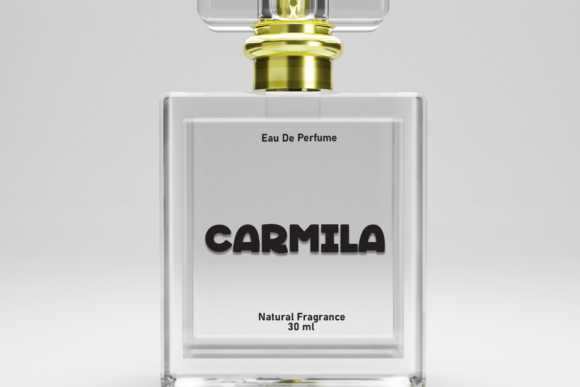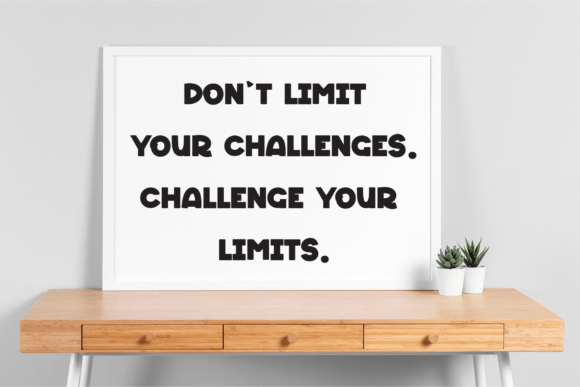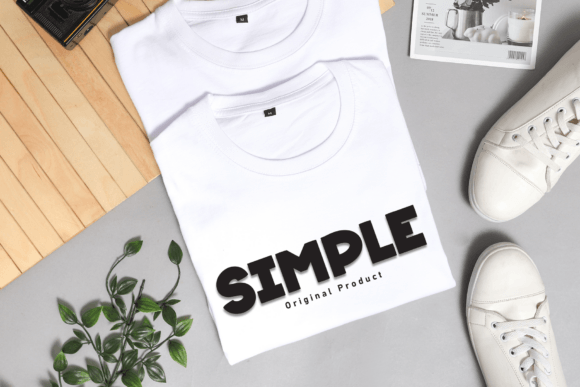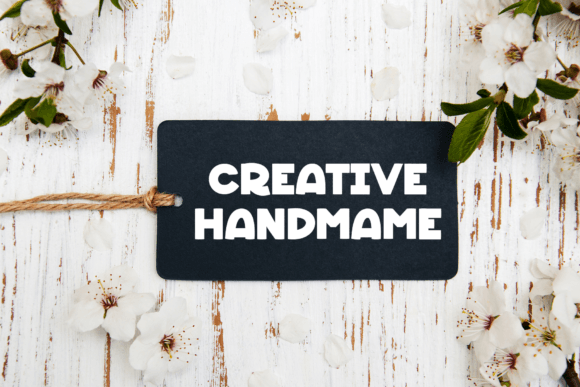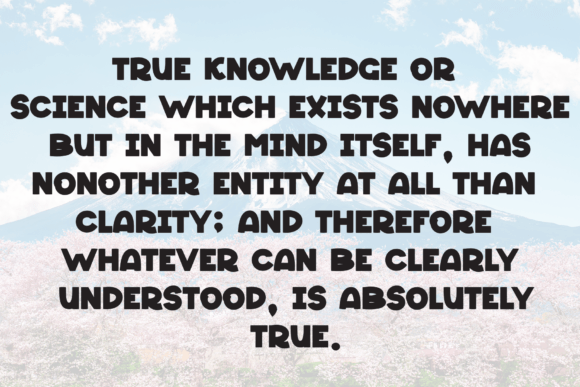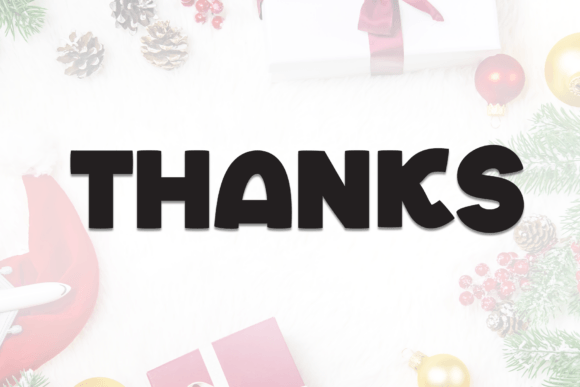
Introducing Christmas December Font: A Charming Handwritten Display Font
Are you looking for a font that can add a touch of warmth and personality to your designs? Look no further than Christmas December Font, a charming and personable handwritten display font that effortlessly exudes a wholesome and affable appeal. With its adorable and playful characteristics, this font is a perfect choice for crafting enchanting wedding invitations, personalized cards, or any design project requiring a delightful flourish.
What Makes Christmas December Font So Special?
Christmas December Font is a unique and captivating font that promises to infuse genuine warmth and fun into every stroke. Its handwritten design gives it a personal and intimate feel, making it perfect for designs that require a touch of personality. Whether you’re creating wedding invitations, birthday cards, or social media graphics, this font is sure to add a dash of joy to your designs.
Perfect for Wedding Invitations and Personalized Cards
Christmas December Font is a perfect choice for crafting enchanting wedding invitations and personalized cards. Its adorable and playful characteristics make it ideal for couples who want to add a touch of whimsy and romance to their special day. With this font, you can create beautiful and unique wedding invitations that will set the tone for a memorable and joyous celebration.
Adding a Dash of Joy to Your Designs
With Christmas December Font, you can add a dash of joy to your designs and make them stand out from the crowd. Its captivating and charming design makes it perfect for designs that require a touch of personality and whimsy. Whether you’re creating social media graphics, blog posts, or marketing materials, this font is sure to infuse your designs with genuine warmth and fun.
Key Features of Christmas December Font
- Charming and personable handwritten display font
- Effortlessly exudes a wholesome and affable appeal
- Adorable and playful characteristics
- Perfect for crafting enchanting wedding invitations and personalized cards
- Ideal for designs that require a delightful flourish
- Promises to infuse genuine warmth and fun into every stroke
Tips for Using Christmas December Font
Here are some tips for using Christmas December Font in your designs:
- Use it for headings and titles to add a touch of personality and whimsy
- Pair it with other fonts to create a unique and eye-catching design
- Use it for body text to create a personal and intimate feel
Christmas December Font is a charming and personable handwritten display font that is perfect for designers and crafters who want to add a touch of warmth and personality to their designs. With its adorable and playful characteristics, this font is sure to infuse genuine warmth and fun into every stroke. Whether you’re creating wedding invitations, personalized cards, or social media graphics, Christmas December Font is a great choice for any design project requiring a delightful flourish.